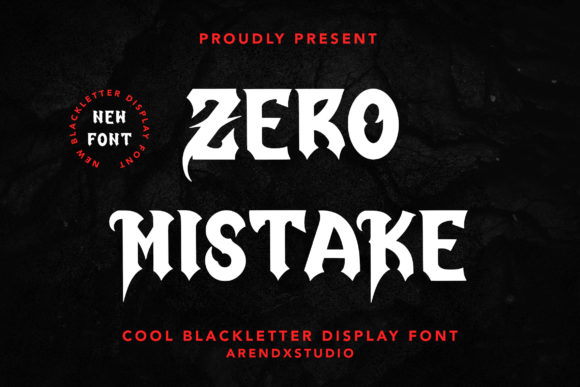
Venture into the realm of visual enchantment with Zero Mistake, a blackletter font that transcends ordinary typography. Inspired by the gothic and horror genres, this font family embodies an aura of mystery and intrigue, captivating your audience with its solemn characters and striking presence.
With Zero Mistake, your designs will command attention and leave a lasting impression. Each letterform is carefully crafted to evoke a sense of intrigue and sophistication, making it the perfect choice for creating logotypes that demand recognition. Unleash your creativity and craft posters that exude an aura of enchantment, badges that ignite curiosity, and book covers that transport readers to uncharted realms.
Imagine the impact of your t-shirt designs adorned with Zero Mistake's unique charm. Its bold and distinctive characters will make your creations stand out from the crowd, ensuring that your message resonates with your target audience. Elevate your packaging designs with a touch of mystique, capturing the attention of potential customers and leaving them eager to discover what lies within.
Whether you're a seasoned designer or just starting your creative journey, Zero Mistake is the perfect font to elevate your work. Its versatility knows no bounds, adapting seamlessly to a wide range of design projects. Unleash your imagination and let Zero Mistake guide you toward typographic excellence.